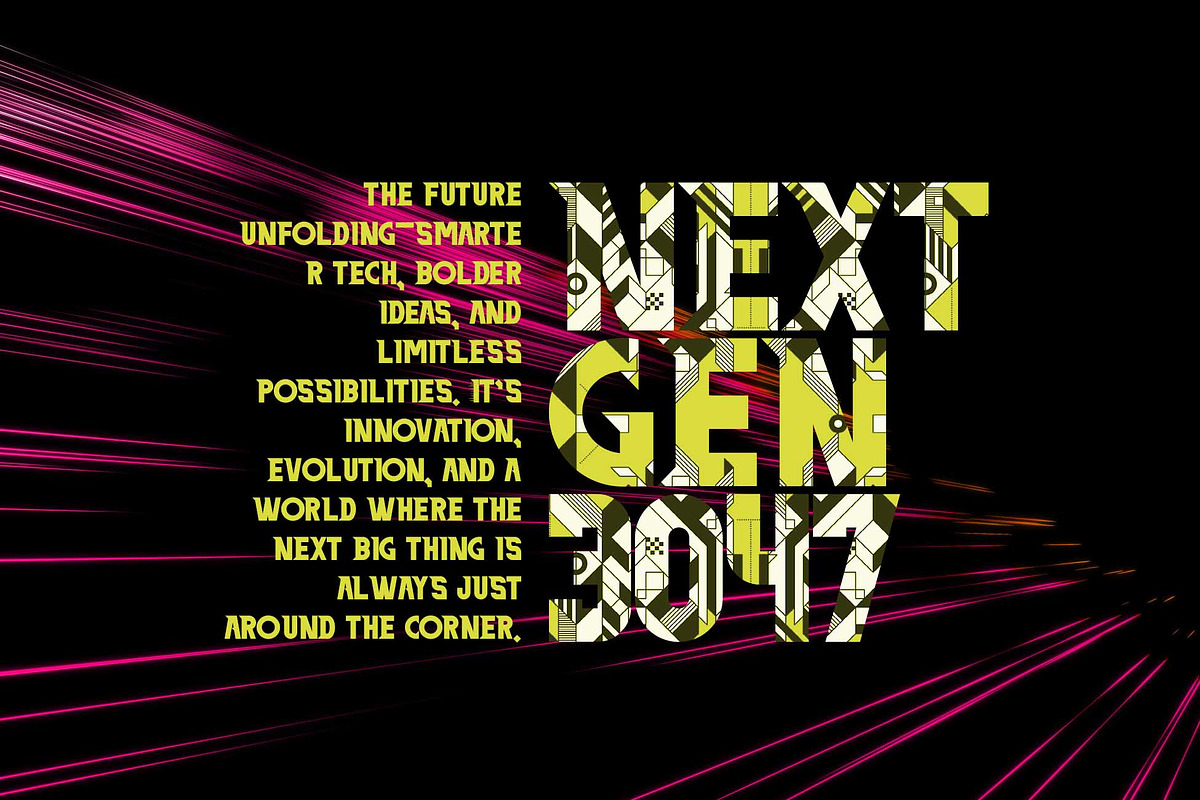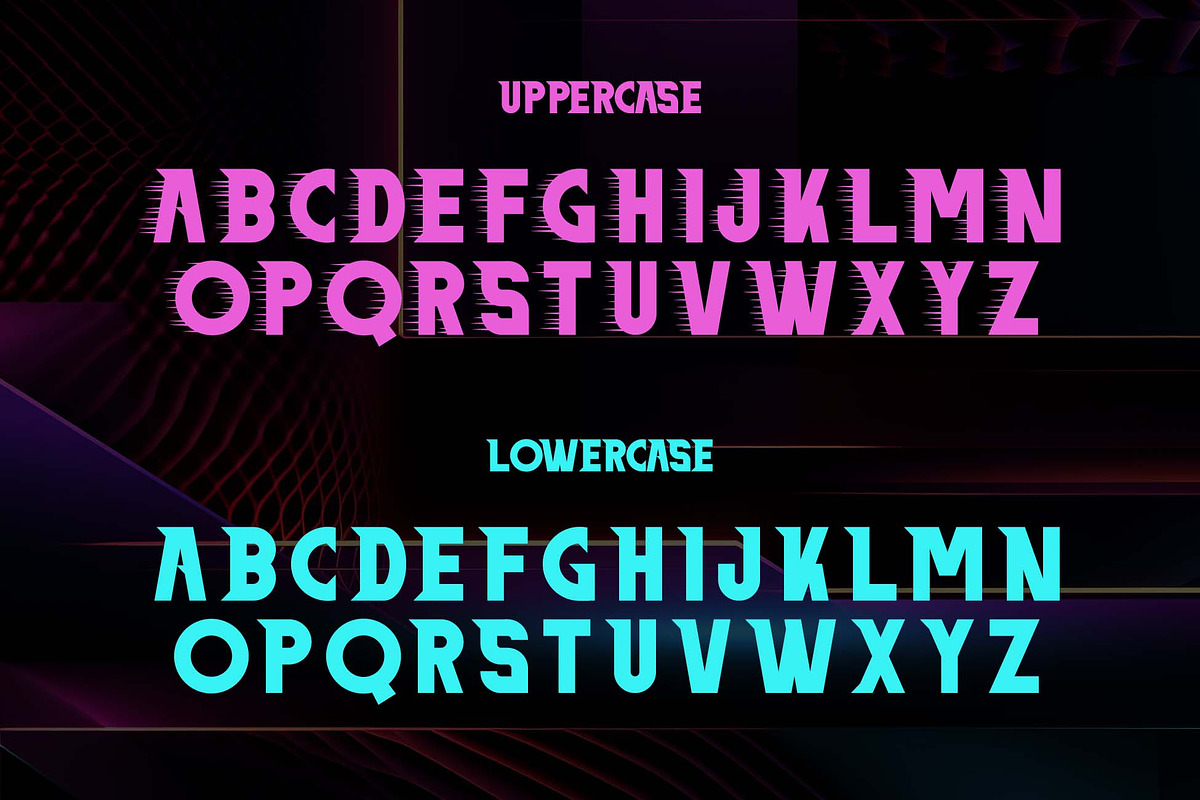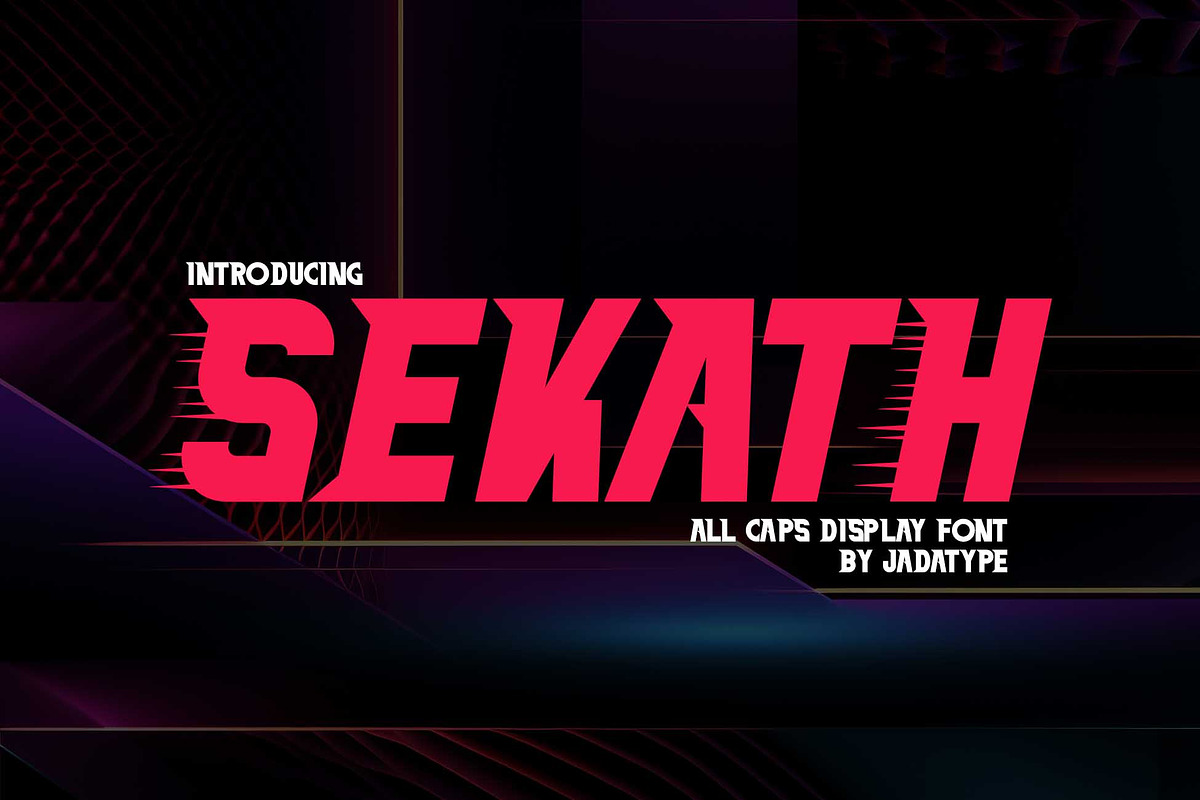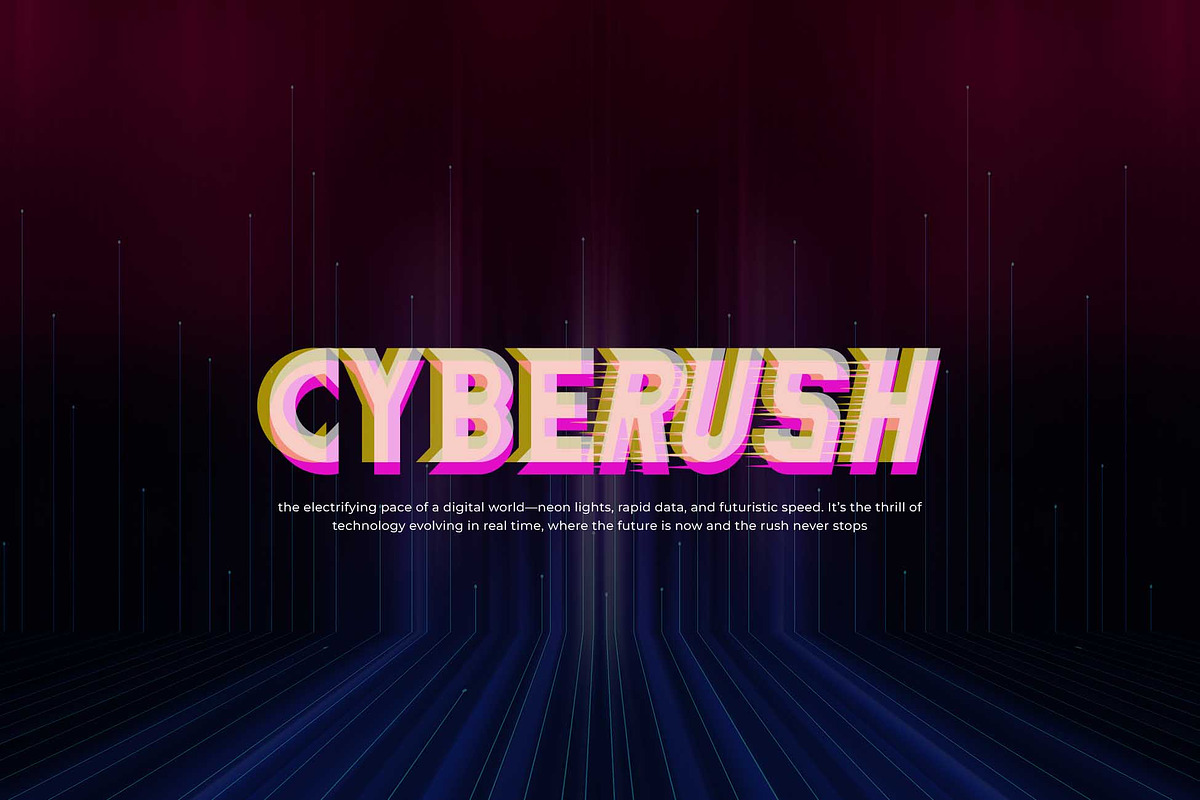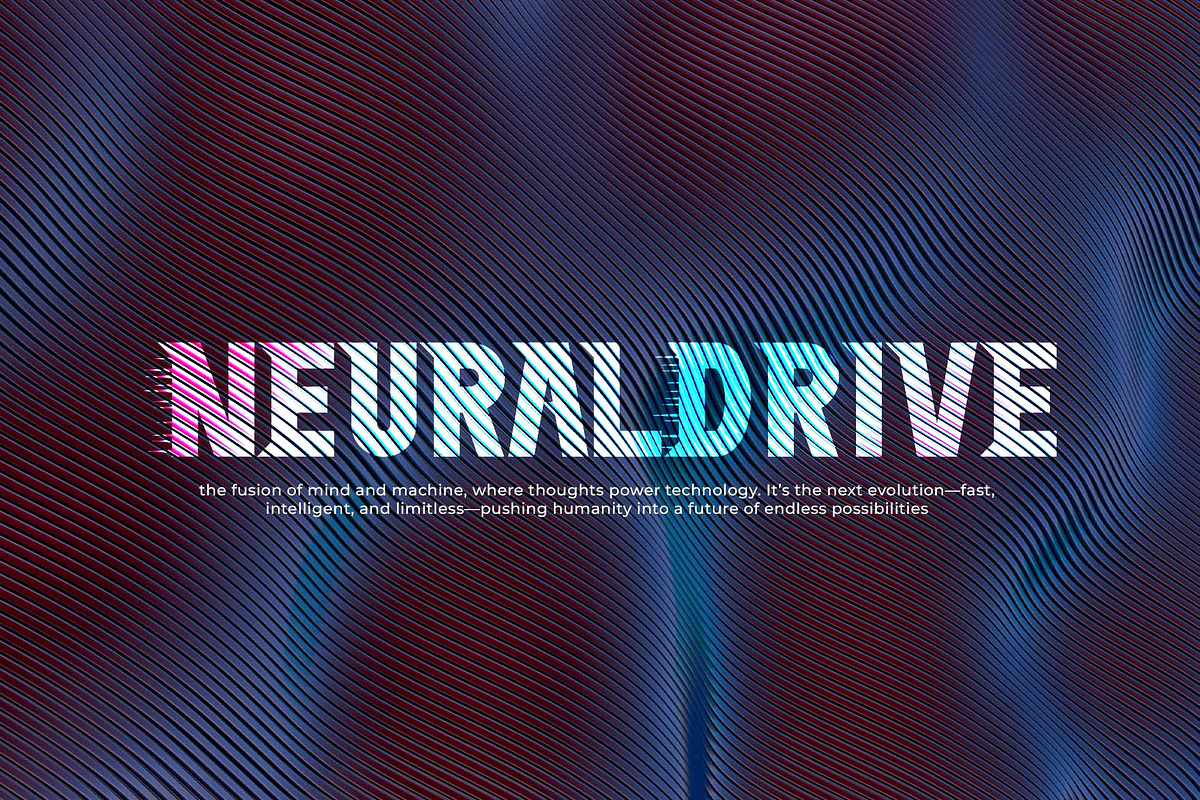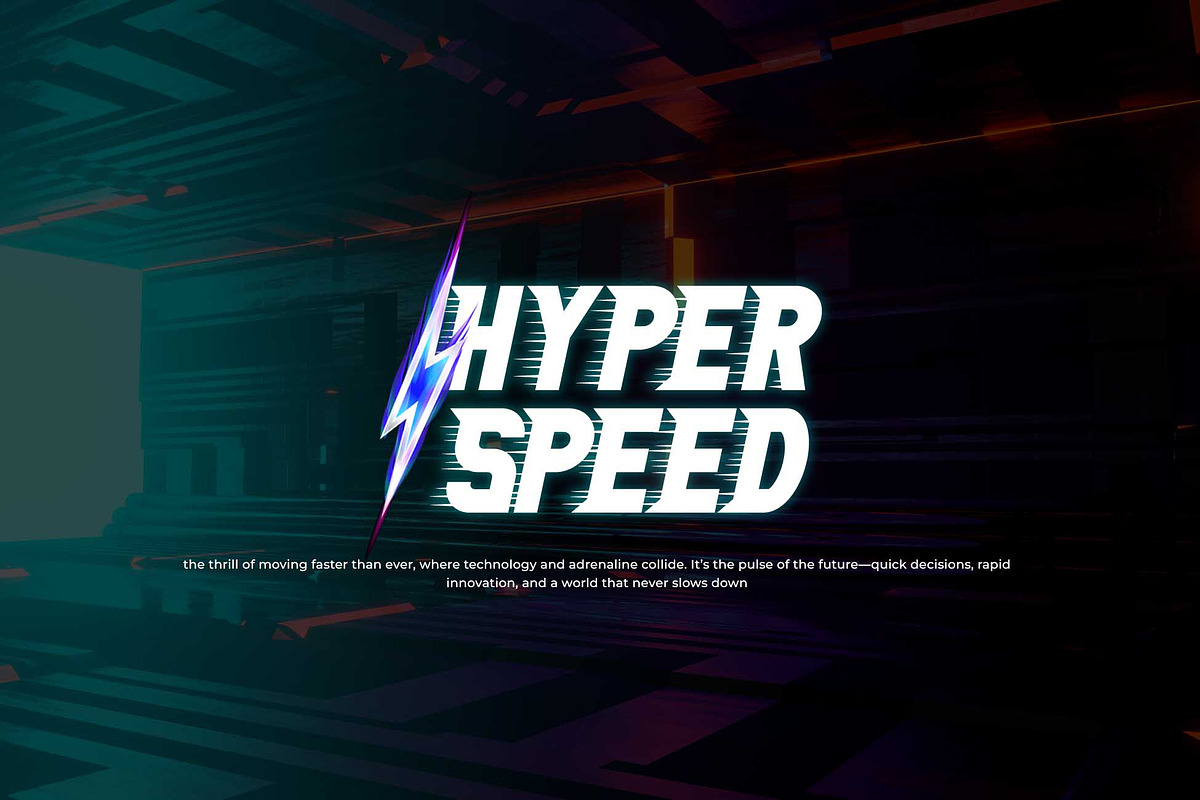
Sekath | Modern Display
Sekath is a All Caps Display that comes with fast and speed vibe. suitable for logotype, branding, social media, products, merchandise, and so on. contains standard English letters, numbers, punctuation, and several accents that support multilingualism.